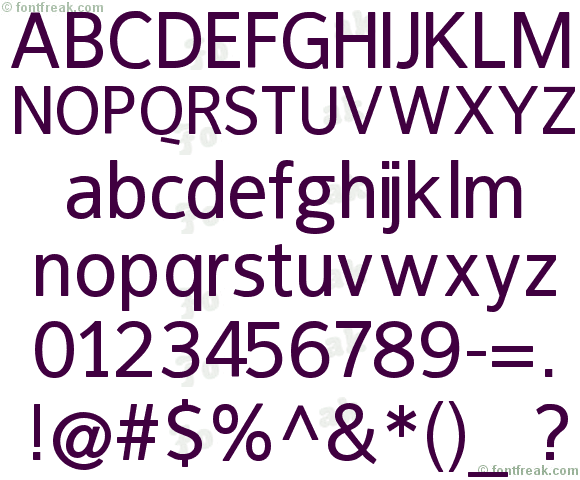
FranKleinMedium
About FranKleinMedium
FranKleinMedium is a modern sans-serif font designed by Manfred Klein, embodying a clean and versatile aesthetic. It features a balanced stroke weight that enhances legibility while maintaining a contemporary feel. The font showcases minimal contrast between thick and thin strokes, contributing to its uniformity and simplicity. The spacing is well-calibrated, ensuring that text remains easily readable, whether in headlines or body copy. This typeface is characterized by its smooth, rounded corners, which give it a friendly and approachable appearance, making it suitable for a wide range of applications.
The FranKleinMedium font is perfect for various design projects, including restaurant menus, where clarity and style are paramount, and wedding invitations that call for a modern yet elegant touch. It can also be effectively utilized in branding materials for small businesses, creating a professional image that resonates with clients. Additionally, this font stands out in digital content creation, such as social media graphics and website headings, where a clean and appealing font can significantly enhance user engagement.